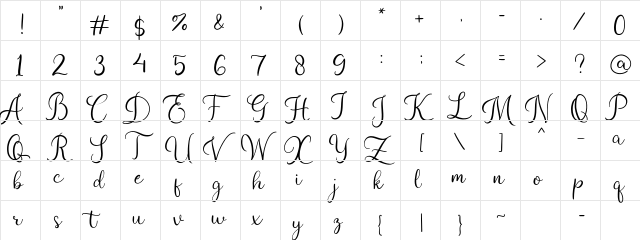
Little Bluemy Regular
Design Context for Little Bluemy Typeface
Little Bluemy is a composed and adaptable typeface that performs quietly and consistently across a wide range of design contexts.